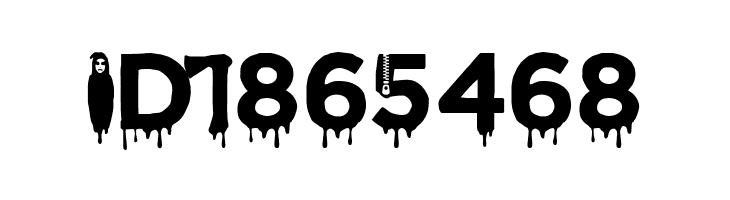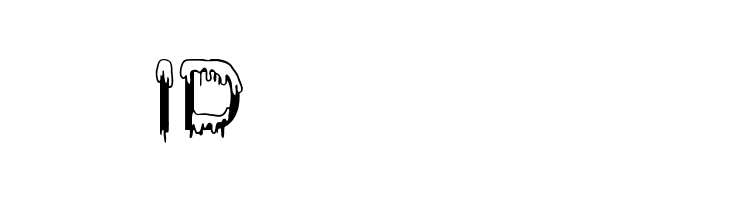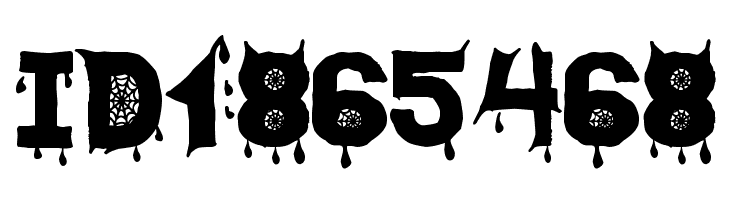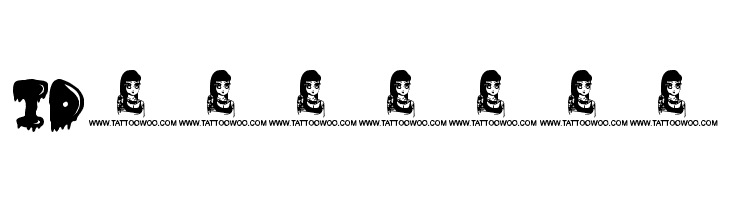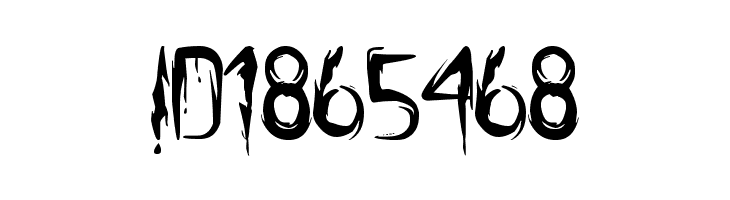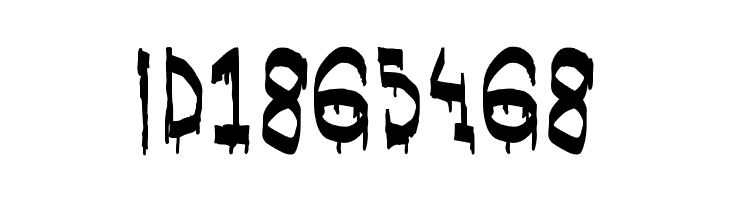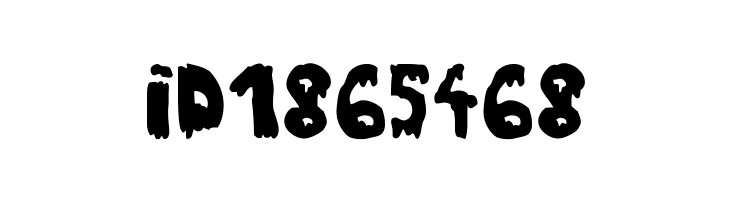
A spooky, dripping font perfect for Halloween-themed designs.
A bold, decorative font with a dripping effect, ideal for creative projects.
A spooky, Halloween-themed font with dripping, cobwebbed characters.
A bold, dripping font with a spooky, fluid design.
A bold, graffiti-inspired font with sharp angles and a dripping effect.
A bold, jagged font with a dripping effect, perfect for dramatic and intense designs.
A bold, dripping font with a horror or grunge aesthetic.
A bold, dripping font with an organic, fluid style.
A bold, dripping effect font with a unique, edgy style.